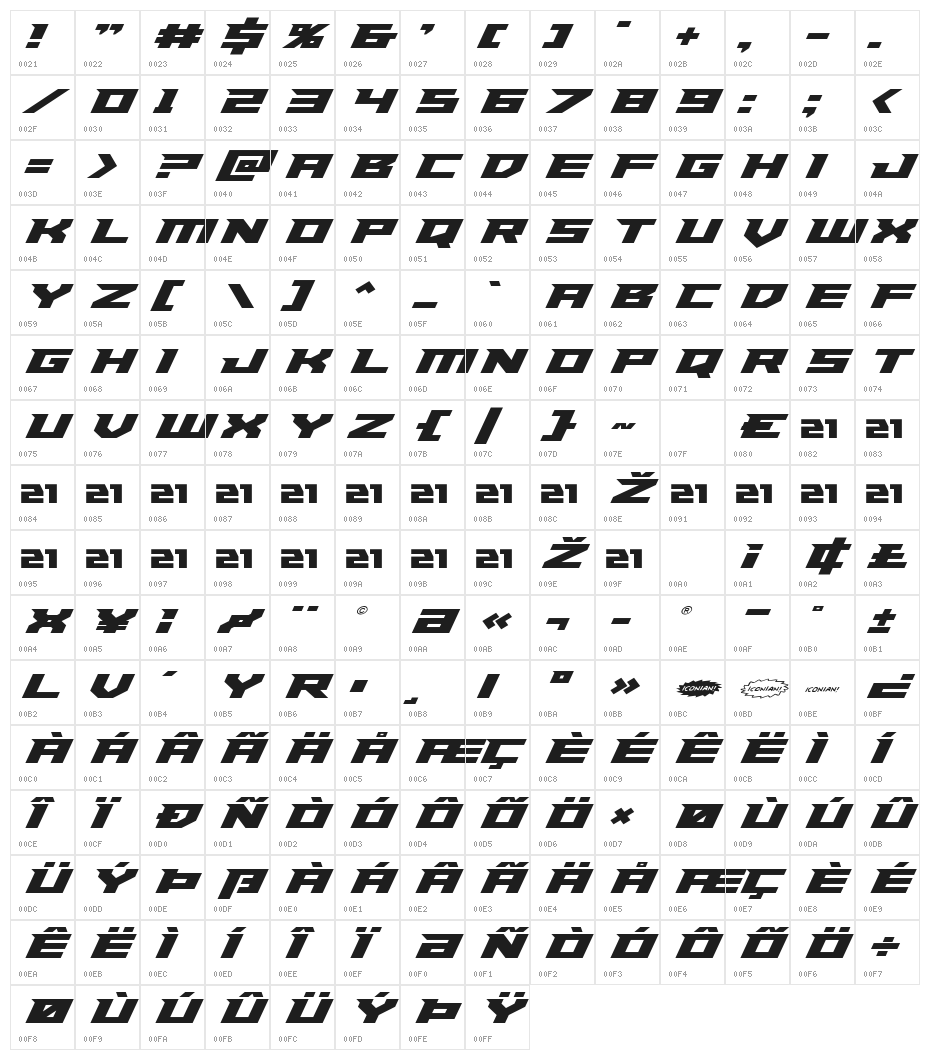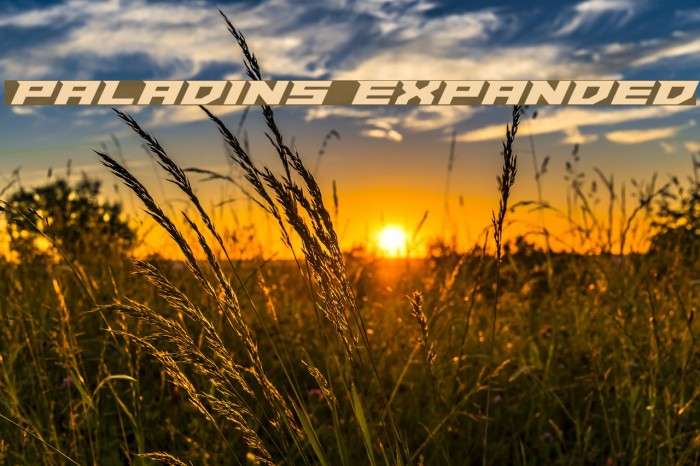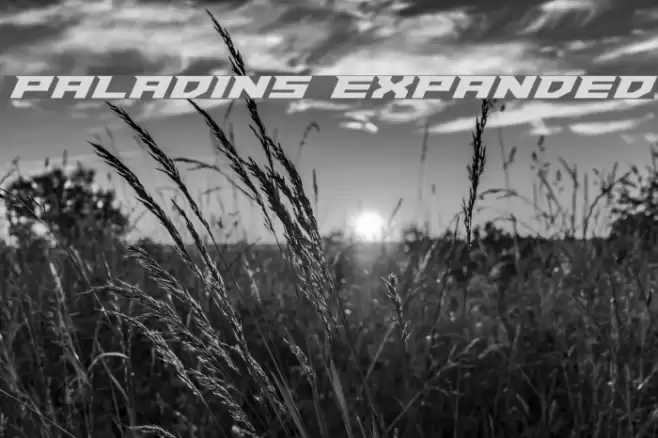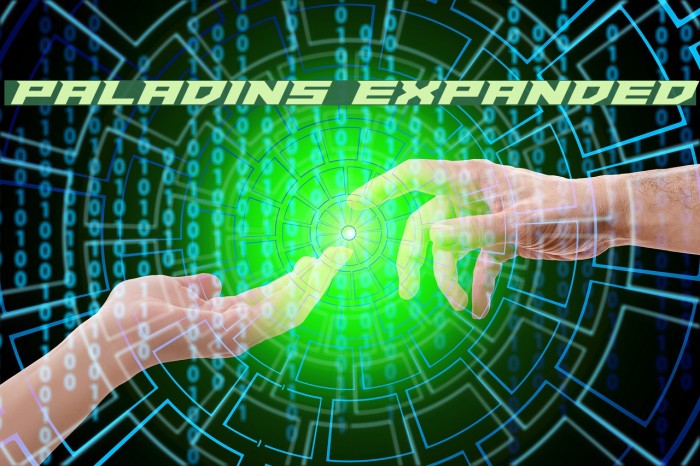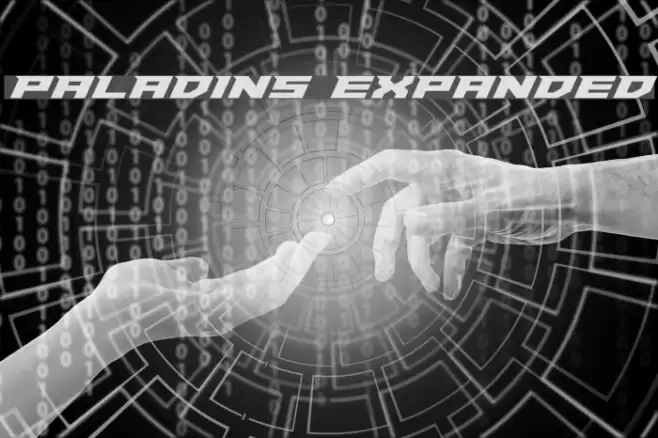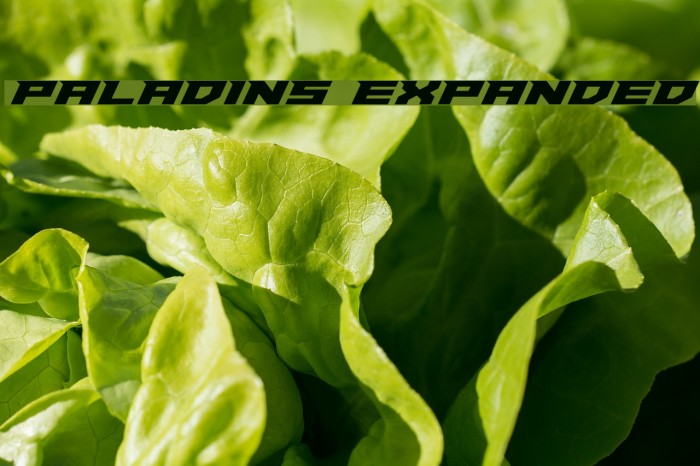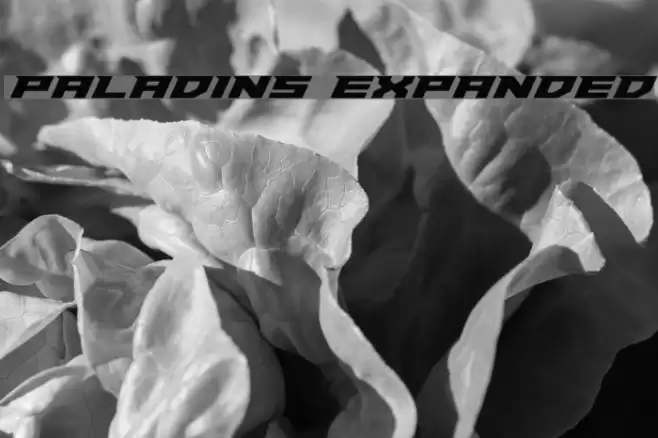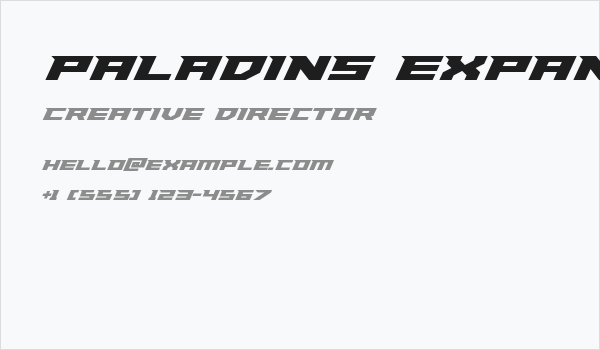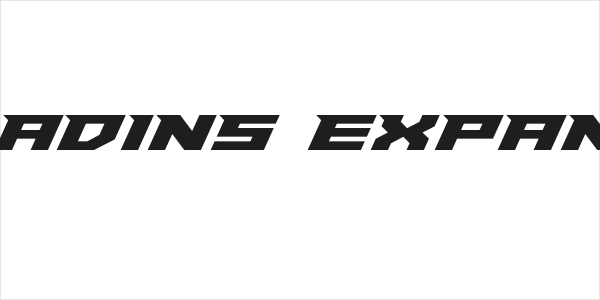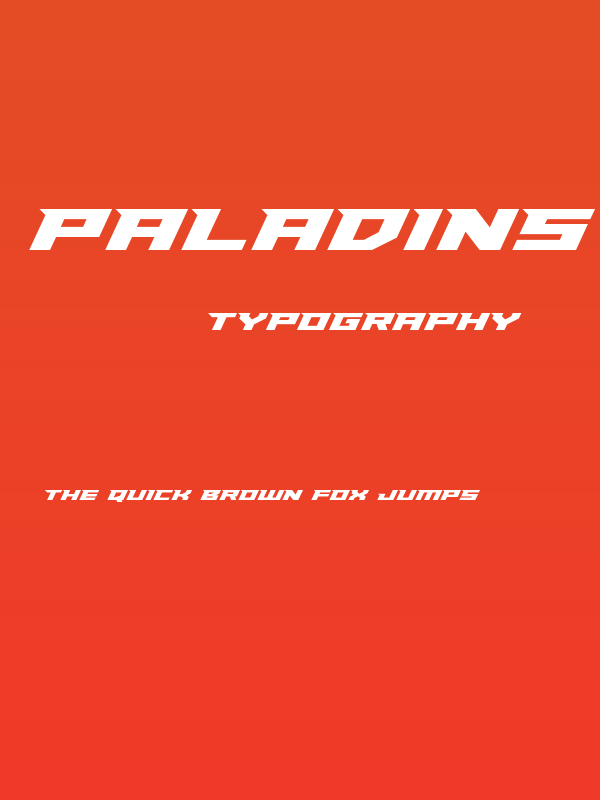
Paladins Expanded Font
Paladins Expanded Description
This font features a bold and dynamic style with a futuristic flair. The characters are sharply angled, giving them a sense of motion and energy. The uppercase letters are particularly striking, with a consistent slant that adds to the overall aggressive and modern appearance. The numerals and special characters maintain this aesthetic, ensuring a cohesive look across all glyphs. The font's design is perfect for projects that require a strong visual impact, such as sports branding, video game titles, or action movie posters. Its unique style makes it stand out, while still being legible and functional.
Proposed ProjectsIdeal for sports branding, video game titles, and action movie posters.